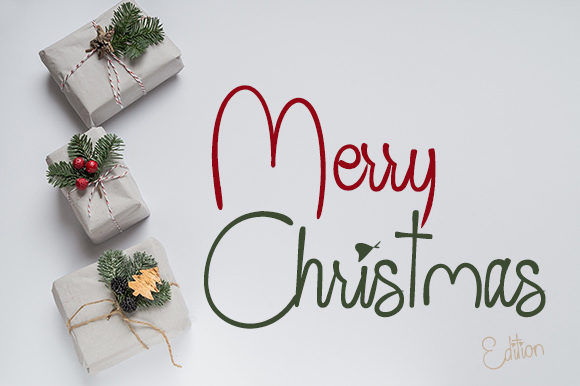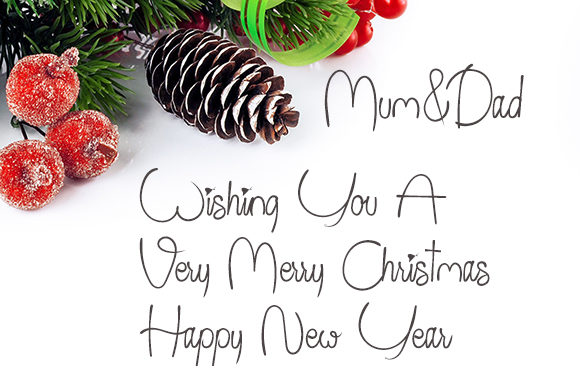
Discover the Charm of Bright Font: A Sweet and Playful Script Font
Bright Font is an incredibly sweet and charming script font that radiates love. Get inspired by its playful and authentic look! This delightful font is perfect for designers and crafters looking to add a touch of warmth and personality to their projects. In this article, we’ll dive into the world of Bright Font, exploring its features, uses, and benefits.
A Font that Shines with Personality
Bright Font is a script font that exudes a sense of joy and friendliness. Its playful and authentic look makes it perfect for a wide range of design projects, from wedding invitations and greeting cards to branding and packaging. The font’s unique charm lies in its hand-drawn feel, which gives it a personal and approachable vibe.
Key Features of Bright Font
- Playful and Authentic Look: Bright Font boasts a unique and charming appearance that is sure to capture the attention of your audience.
- Hand-Drawn Feel: The font’s hand-drawn feel gives it a personal and approachable vibe, making it perfect for designs that require a touch of warmth and personality.
- Script Font: Bright Font is a script font that is perfect for adding a touch of elegance and sophistication to your designs.
- Easy to Read: Despite its playful look, Bright Font is easy to read, making it perfect for body text and headings.
Uses of Bright Font
Bright Font is a versatile font that can be used in a wide range of design projects, including:
- Wedding Invitations: Add a touch of romance and whimsy to your wedding invitations with Bright Font.
- Greeting Cards: Use Bright Font to create personalized and heartfelt greeting cards for special occasions.
- Branding and Packaging: Bright Font is perfect for brands that want to convey a sense of friendliness and approachability.
- Social Media Graphics: Use Bright Font to create engaging and eye-catching social media graphics.
Benefits of Using Bright Font
There are many benefits to using Bright Font in your design projects. Here are a few:
- Unique and Eye-Catching: Bright Font is a unique and eye-catching font that is sure to capture the attention of your audience.
- Versatile: Bright Font is a versatile font that can be used in a wide range of design projects.
- High-Quality: Bright Font is a high-quality font that is designed to produce crisp and clear results.
Tips for Using Bright Font
Here are a few tips for using Bright Font in your design projects:
- Use it with a Contrasting Font: Use Bright Font with a contrasting font to create visual interest and hierarchy.
- Experiment with Colors: Bright Font looks great in a variety of colors, so don’t be afraid to experiment and find the perfect hue for your design.
- Use it Sparingly: While Bright Font is a beautiful font, it can be overwhelming if used too much. Use it sparingly to create a sense of balance and harmony.
Bright Font is a sweet and charming script font that is perfect for designers and crafters looking to add a touch of warmth and personality to their projects. With its playful and authentic look, Bright Font is sure to capture the attention of your audience and leave a lasting impression. Whether you’re designing wedding invitations, greeting cards, or branding materials, Bright Font is a versatile font that is sure to inspire.